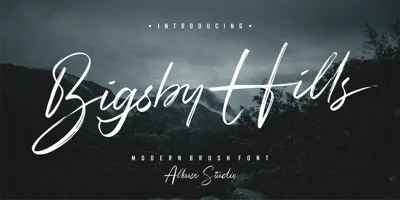
Bigsby Hills Font
Bigsby Hills Font is perfect for luxury resort branding, upscale neighborhood signage, prestigious real estate marketing, exclusive country club materials, high-end hospitality graphics, premium lifestyle campaigns, sophisticated event invitations, elegant corporate identities, refined retail displays, and affluent community communications. Its upscale character makes it ideal for projects requiring prestige and sophisticated appeal that resonates with discerning audiences.
What makes Bigsby Hills Font exciting is its sophisticated embodiment of affluent lifestyle aesthetics that perfectly captures the essence of prestigious living and exclusive experiences. The font features refined letterforms with subtle elegant details that convey prosperity and taste while maintaining approachable readability. Its upscale character creates an atmosphere of exclusivity and refined living that appeals to audiences who appreciate quality, luxury, and sophisticated design sensibilities.
The Bigsby Hills Font family includes Regular, Bold, Light, Elegant, Prestige, Elite, and Luxury variations. Each style preserves the font's upscale essence while offering different levels of sophistication and prestige weight for creating exclusive high-end graphics. The comprehensive character set includes luxury symbols, prestigious ornaments, affluent decorations, and elite glyphs essential for authentic upscale and luxury lifestyle typography projects.
Luxury brands and upscale businesses consistently choose Bigsby Hills Font for projects demanding sophisticated prestigious typography solutions. The font's refined character instantly establishes exclusive atmospheres while ensuring clear communication across luxury marketing channels. Its versatility spans from subtle prestigious touches to bold statements that celebrate affluent living and sophisticated lifestyle choices.
Whether you're developing luxury real estate identities, creating upscale marketing materials, or designing prestigious brand communications, Bigsby Hills Font provides the perfect combination of sophisticated elegance and contemporary functionality. The font's meticulously crafted letterforms ensure authentic upscale character while maintaining excellent performance across various luxury applications and exclusive business communications.
The prestigious heritage of Bigsby Hills Font makes it exceptional for creating aspirational connections with audiences who value quality living and sophisticated experiences. Its upscale precision and refined appeal work seamlessly across traditional luxury print materials and modern digital prestige platforms. The font performs elegantly in both large-scale luxury displays and intimate exclusive communications.
Elevate your prestige with Bigsby Hills Font and discover how sophisticated luxury typography can enhance your upscale projects with genuine affluent appeal and refined elegance. This remarkable typeface combines prestigious living aesthetics with contemporary functionality, making it indispensable for brands celebrating the finest aspects of sophisticated lifestyle and exclusive experiences.